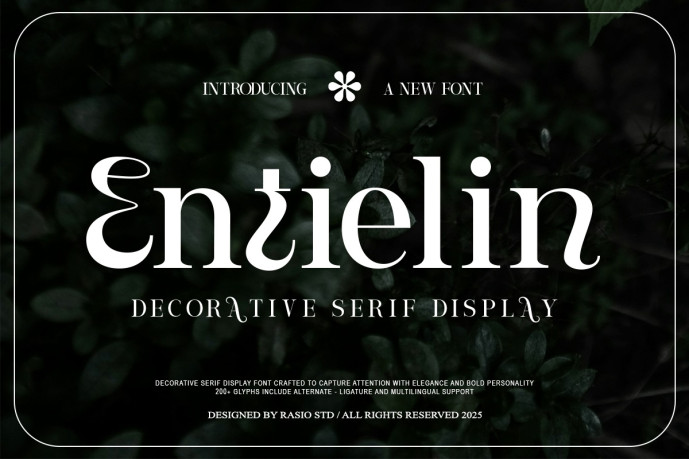
Entielin Font
Entielin Font is a decorative serif display typeface designed to command attention with its expressive form and refined elegance. Featuring over 200 glyphs, including alternate characters and ligatures, this typeface offers a variety of visual options to enhance any creative project. The letterforms are bold yet sophisticated, making Entielin ideal for headlines, logos, and branding materials that require a distinct serif identity. It supports multilingual characters, uppercase and lowercase letters, numbers, and punctuation, providing complete flexibility for
digital and print applications
Relevance and Uses Cases is perfect for retro brands, nostalgic product packaging, cafe and bakery identity, wedding invitations, warm greeting cards, product titles, vintage posters, handwritten quotes, lifestyle editorials and any creative project requiring an expressive personality with serif.